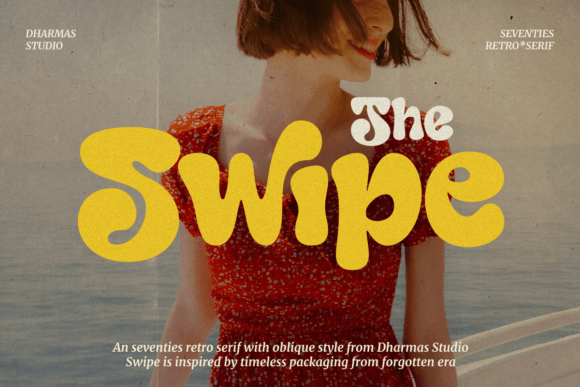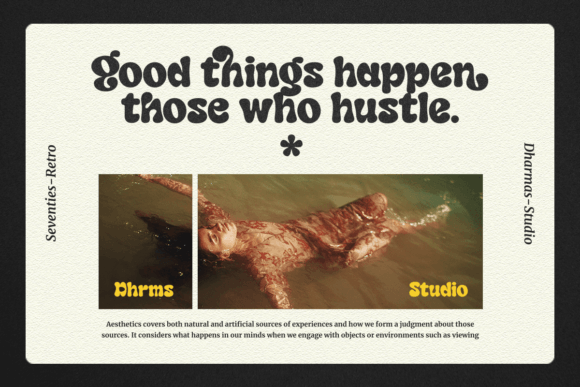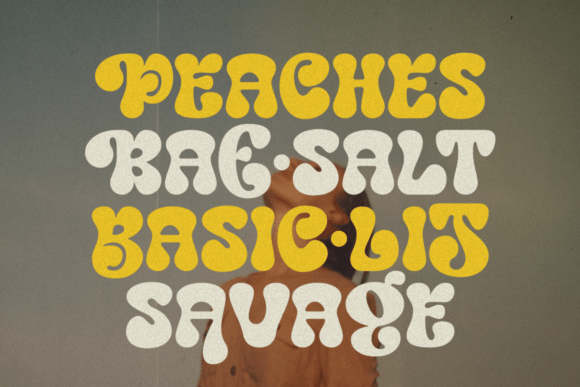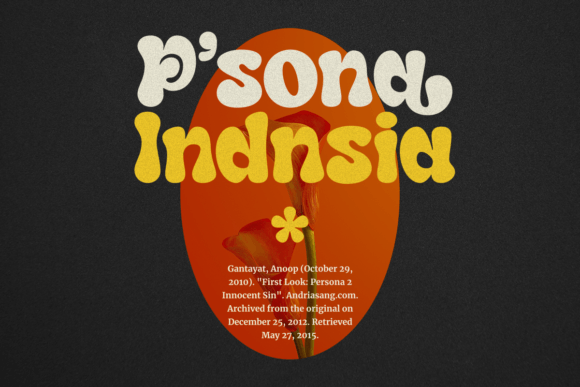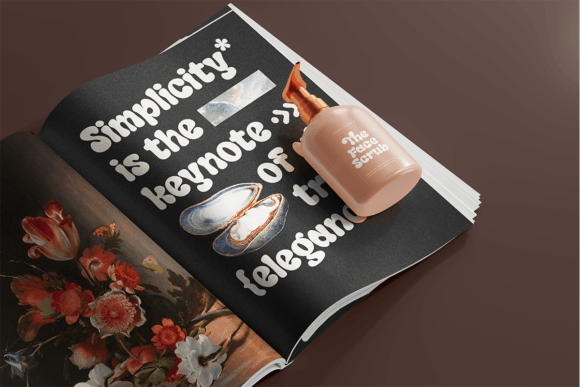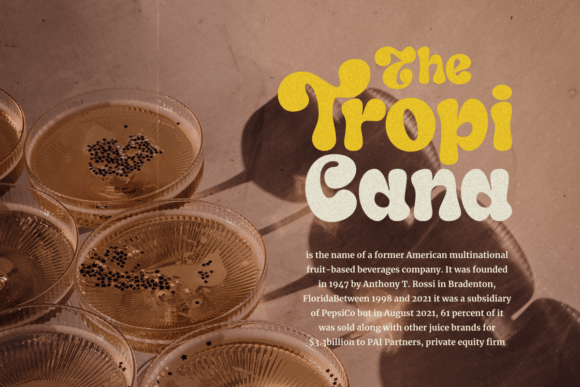
Swipe Font
Say hello to a new retro bold font, Swipe!
Swipe – A seventies font that has both a retro and fun look. It comes with a smooth curve and soft bold with a regular and oblique style that will make your project more stunning with nostalgic feels.
Swipe is best used for headings, logotypes, quotes, apparel design, posters, flyers, packaging, book cover, and many more.
Super-versatile, have a scroll through all the previews to see how wide the range of uses that can be with Swipe, it’s so limitless!